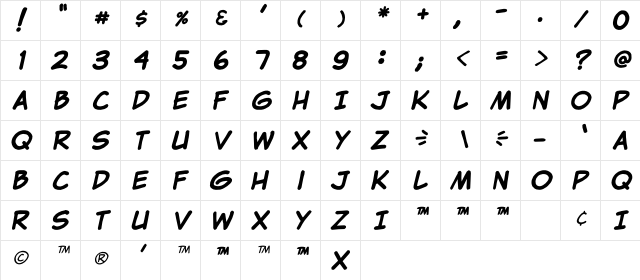
Clementine Bold Italic Font Preview
Design Context for Clementine Typeface
Clementine takes a measured approach to typography — its balanced proportions and neutral character make it a reliable workhorse for both digital and print work. The dynamic lean of this cut emphasises speed and emphasis in any layout. Its bold stroke weight gives it real presence on the page.
Pro Tip: Try Clementine for annotation and caption copy alongside an upright companion — the contrast in angle creates a dynamic but ordered typographic system.